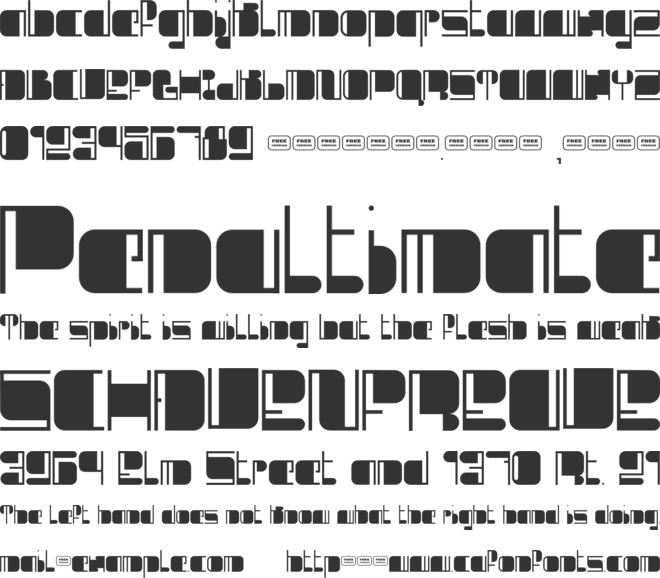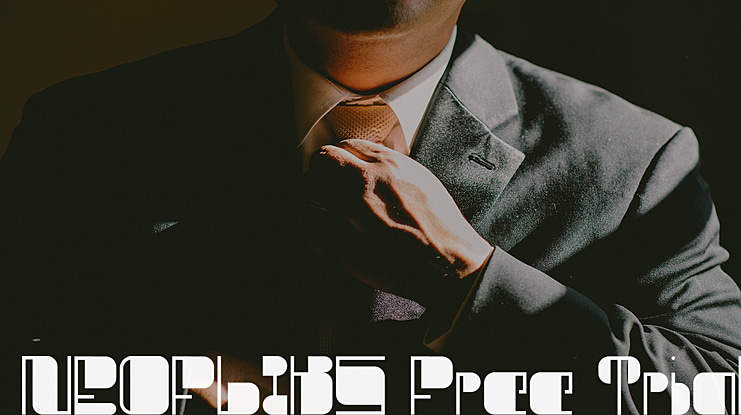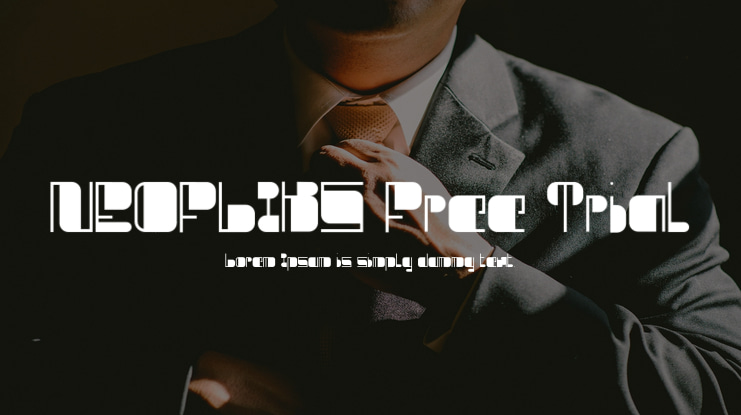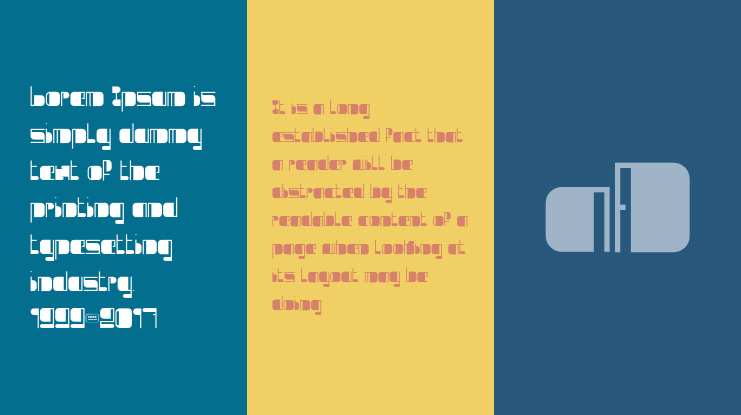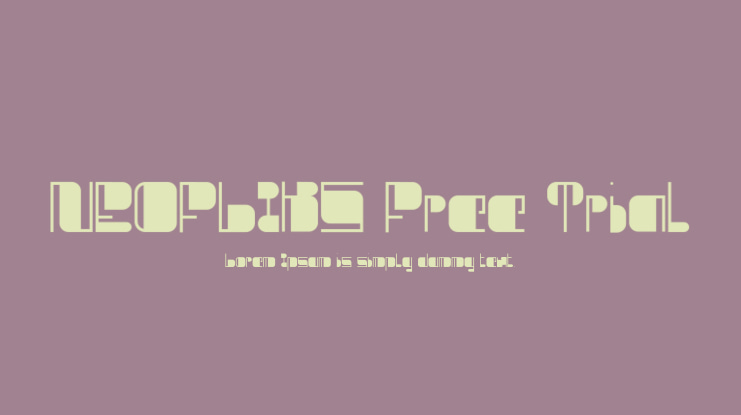
NEOFLIKS Free Trial Font
Neoflix is a unique display font.
Its style makes it perfect for use in your design projects, including product packaging, book covers, titles, banners, business cards, and more.